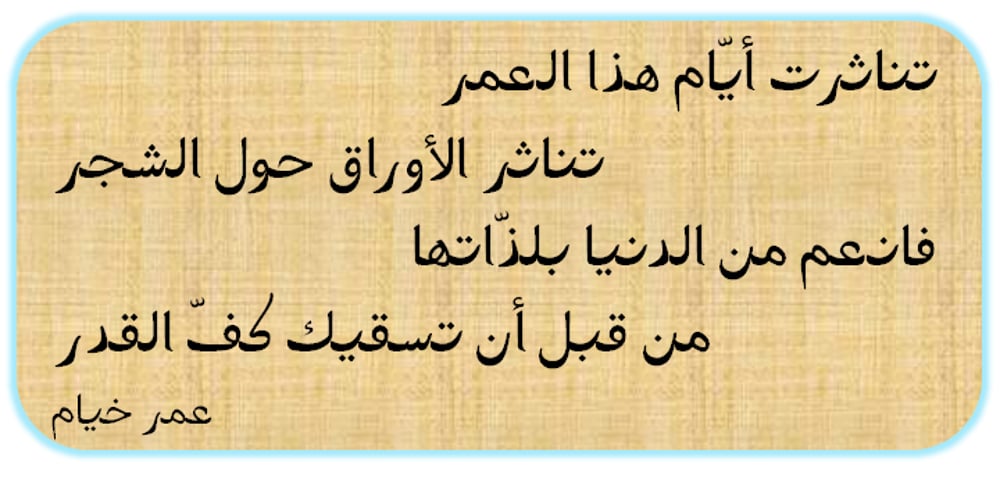
Nastarkib Font Family was designed by Saad D. Abulhab and published by Arabetics. Nastarkib contains 4 styles and family package options. An isolated typeface design with a calligraphic flavor. The Nastarkib font family employs visual features from the Urdu Persian Nastaliq Calligraphy. Visual connectivity is accomplished by overlapping glyphs with downward slopes. This font family has four members including normal and bold weights with two styles each, regular and left-slanted italic styles. This font family design follows the guidelines of Mutamathil Taqlidi type style with one glyph for every basic Arabic Unicode character or letter, as defined in the latest Unicode Standards, and one additional final form glyph, for the freely-connecting letters in traditional Arabic cursive text. Nastarkib employs variable x-height values. It includes only the Lam-Alif ligatures. Soft-vowel diacritic marks, harakat, are selectively positioned. Most of them appear by default on the same level, following a letter, to ensure that they would not interfere visually with letters. Tatweel is a zero-width glyph. Keying the tatweel key before Alif-Lam-Lam-Ha will display the Allah ligature. Nastarkib includes both Arabic and Arabic-Indic numerals, in addition to standard punctuations.